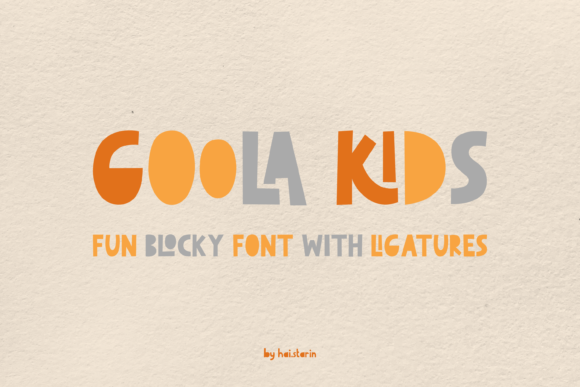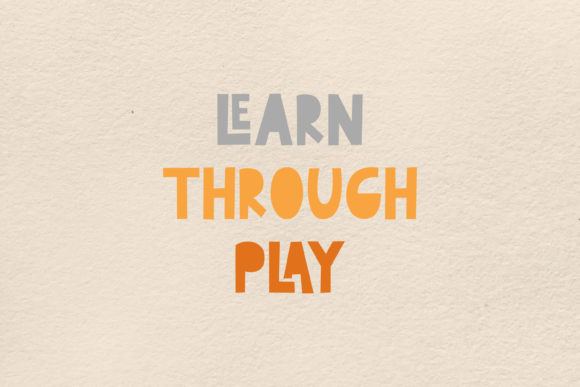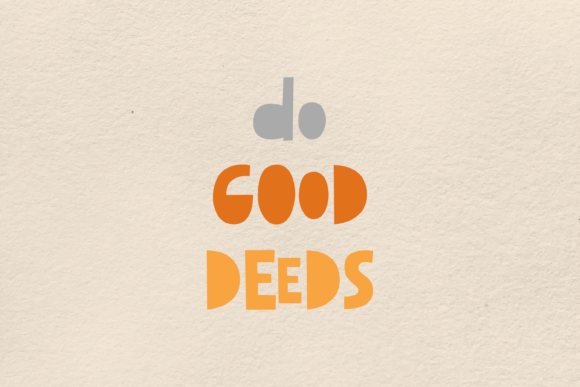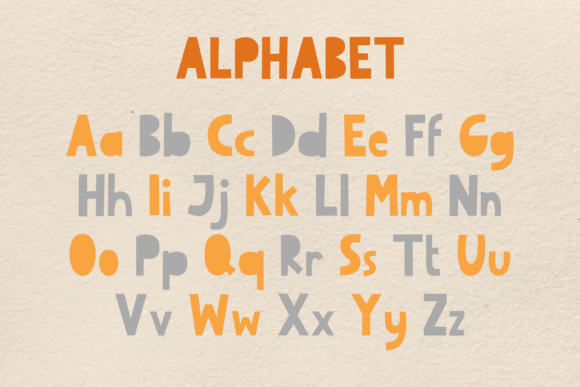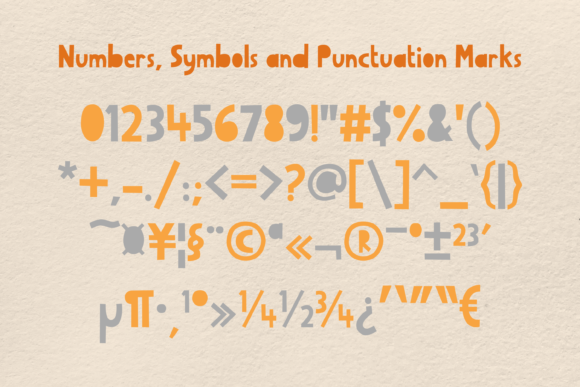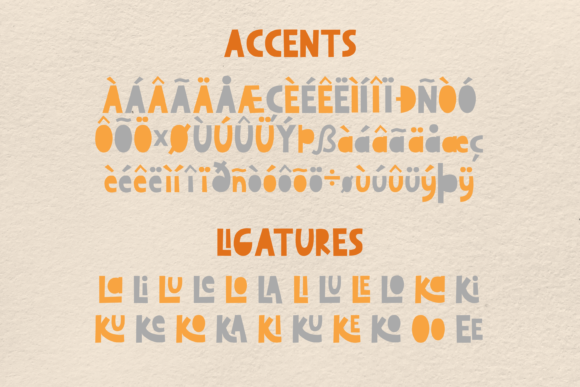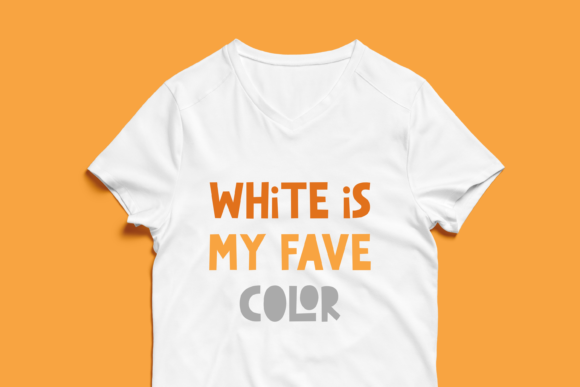
Discover the Perfect Playful Font for Your Next Project
Have you ever stared at a blank page, waiting for inspiration to strike? That’s exactly what happened to me last week. I was brainstorming ideas for a new product packaging design, and suddenly, a burst of creativity hit me. I envisioned a fun, blocky sans serif font that would jump off the shelf and capture the attention of kids (and kids at heart!). That’s when I stumbled upon the Goola Kids Font – a game-changer for designers looking to add a playful twist to their projects.
This cool font is designed to be versatile, making it perfect for headings, printed quotes, or any project that requires a unique look. With its ligatures and blocky style, Goola Kids Font is sure to bring a smile to your clients’ faces. As a designer, you’ll love the value it adds to your work, making it a must-have in your font collection.
- Unique Characteristics: Goola Kids Font features a playful and colorful design, making it perfect for children’s educational materials, websites, and apps
Goola Kids Font Review
Goola Kids Font is an adorable and playful typeface designed for children’s media. Overall, I think it’s a great choice for educational materials, kids’ apps, and other projects aimed at young audiences.
- Customization options**: The font comes with a range of alternates and swashes that allow designers to add a personal touch to their designs.
- Color palette**: The font’s color palette is bright and fun, making it perfect for kids’ content.
- Readability**: The font is clear and easy to read, even at smaller sizes.
- Limited language support**: The font only supports a limited number of languages, which may be a drawback for global projects.
- Lack of ligatures**: The font does not include ligatures, which may affect the overall aesthetic of the design.
Overall, I think Goola Kids Font is a great choice for kids’ content, but it may not be suitable for more complex or global projects. With some customization and creativity, this font can add a playful touch to your designs.
Tips for Getting the Most Out of Goola Kids Font
1. Use the font in combination with bright and playful colors to create a fun and engaging design.
2. Experiment with different font sizes and styles to create visual interest and hierarchy in your design.
3. Use the font to create custom graphics and illustrations to add a personal touch to your design.
Goola Kids Font is ideal for designing:
1. Children’s books and educational materials.
2. Kids’ party invitations and decorations.
3. Youth-focused marketing materials and advertising campaigns.